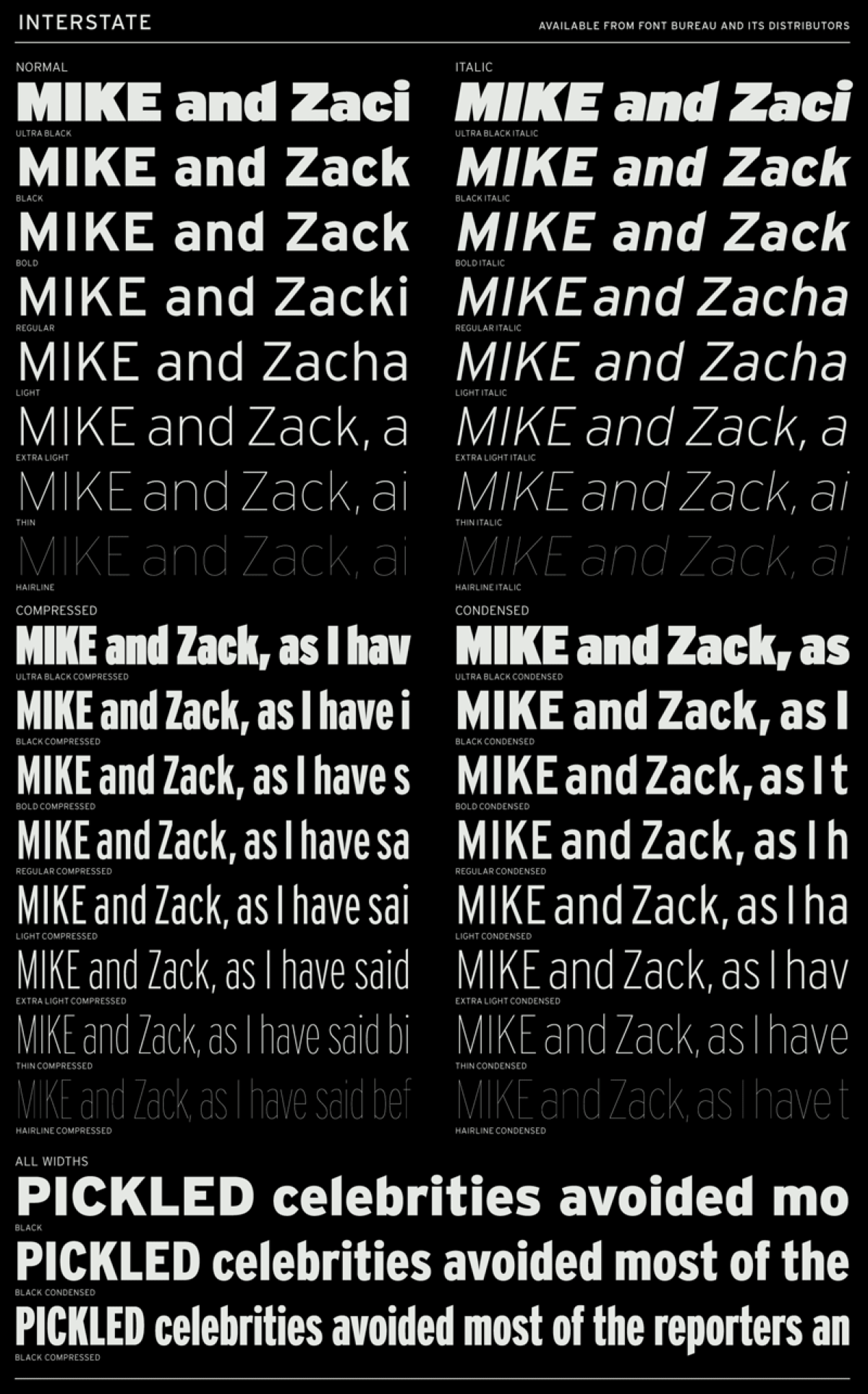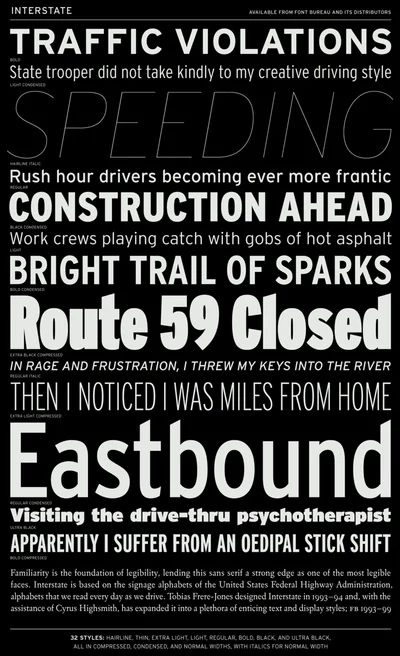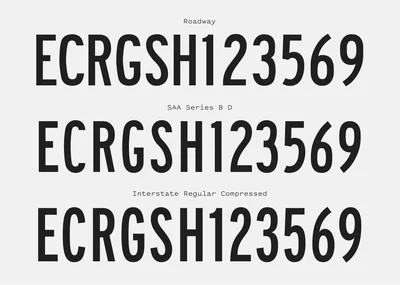
Calibre vs Interstate
Calibre and Interstate are both sans-serif typefaces sharing a readable foundation. The two share 68% design similarity overall. Compare which suits your Branding project.
Calibre
Interstate
| Feature | Calibre | Interstate |
| Source | Klim Type Foundry | Font Bureau |
Recommended: Calibre
- neo-grotesque, modern design character
- Suited for Ui and Tech
- From klim-type-foundry
Consider: Interstate
- Suited for Signage and Headlines
- From font-bureau